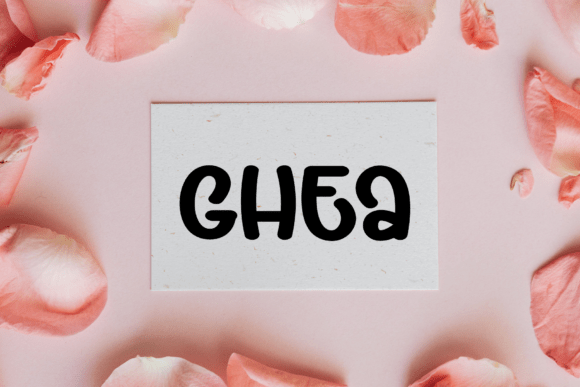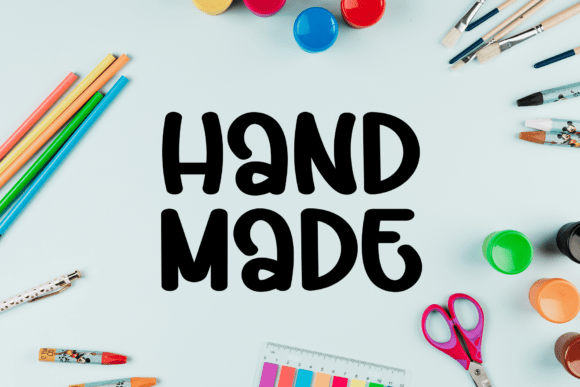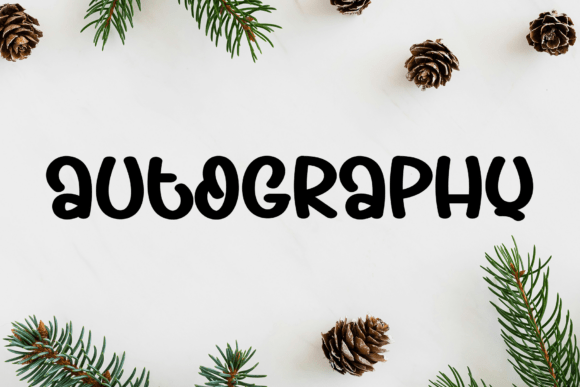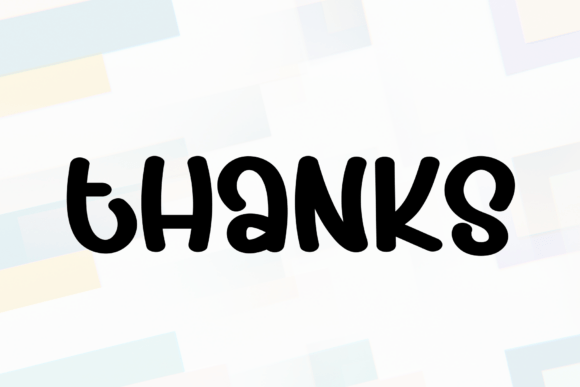
Dino Shark Font: The Perfect Handwritten Style for Your Design Needs
Are you looking for a font that exudes a relaxed and sporty vibe, perfect for adding a touch of luxury and elegance to your designs? Look no further than the Dino Shark Font. This handwritten font, which looks like it was drawn with a marker, is ideal for a wide range of design applications, from branding and logos to wedding supplies, greeting cards, and marketing promotions.
What is Dino Shark Font?
Dino Shark Font is a unique, handwritten font that has a casual, laid-back feel. Its marker-drawn style gives it a distinctive look that’s both elegant and sporty. The font’s relaxed vibe makes it perfect for designers who want to add a personal touch to their work without sacrificing professionalism.
Key Features of Dino Shark Font
- Handwritten style: Dino Shark Font has a natural, handwritten look that’s perfect for designs that require a personal touch.
- Marker-drawn feel: The font’s marker-drawn style gives it a unique, artistic look that’s both elegant and sporty.
- Relaxed and casual: Dino Shark Font has a relaxed, casual vibe that’s perfect for designs that require a laid-back feel.
- Luxurious and elegant: Despite its casual nature, Dino Shark Font still exudes a sense of luxury and elegance, making it perfect for high-end designs.
Design Applications for Dino Shark Font
Dino Shark Font is versatile and can be used for a wide range of design applications, including:
- Branding and logos: The font’s unique style makes it perfect for creating memorable brand identities.
- Wedding supplies: Dino Shark Font is ideal for creating beautiful wedding stationery, such as invitations, save-the-date cards, and thank-you notes.
- Greeting cards: The font’s casual, yet elegant style makes it perfect for creating greeting cards for special occasions.
- Fashion and lookbooks: Dino Shark Font is perfect for fashion designers who want to add a touch of elegance and sophistication to their lookbooks and marketing materials.
- Marketing promotions: The font’s unique style makes it perfect for creating eye-catching marketing materials, such as brochures, flyers, and posters.
Why Choose Dino Shark Font?
There are many reasons why designers and crafters should choose Dino Shark Font for their design needs. Here are just a few:
- Unique style: Dino Shark Font has a unique, marker-drawn style that’s unlike any other font on the market.
- Versatility: The font can be used for a wide range of design applications, from branding and logos to wedding supplies and marketing promotions.
- Elegant and casual: Dino Shark Font strikes the perfect balance between elegance and casualness, making it perfect for designers who want to create luxurious, yet laid-back designs.
In conclusion, Dino Shark Font is a versatile, handwritten font that’s perfect for designers and crafters who want to add a touch of elegance and sophistication to their designs. Its unique, marker-drawn style and relaxed, sporty vibe make it ideal for a wide range of design applications, from branding and logos to wedding supplies and marketing promotions. Whether you’re a professional designer or a crafter, Dino Shark Font is a great choice for anyone who wants to create beautiful, eye-catching designs.